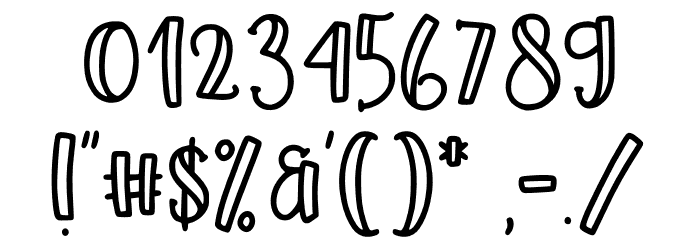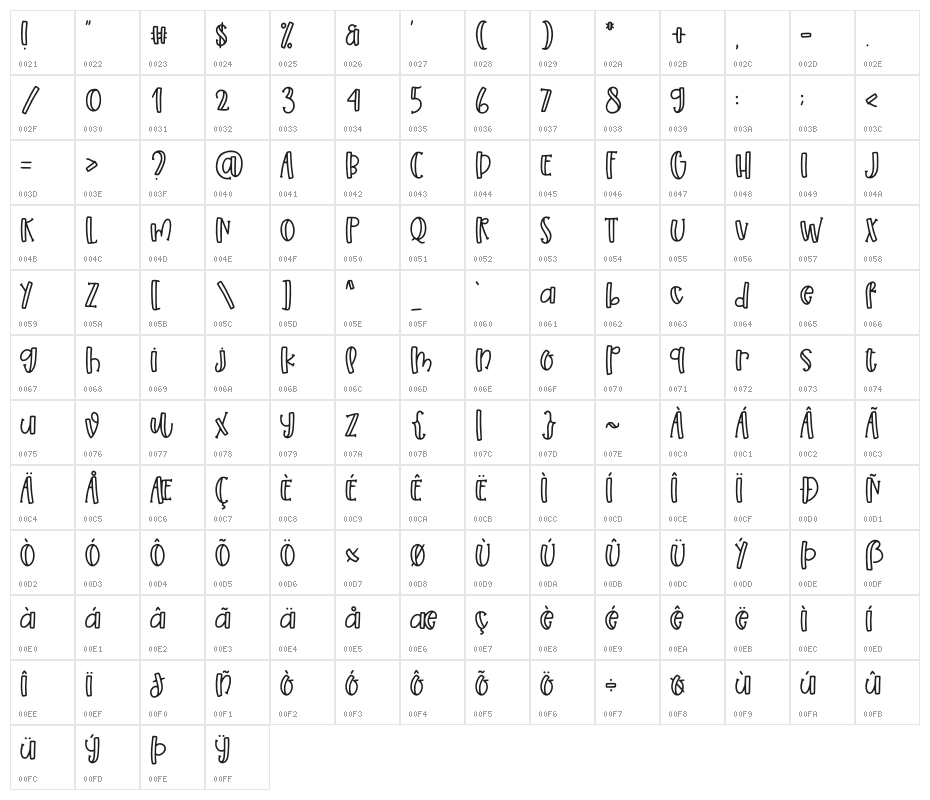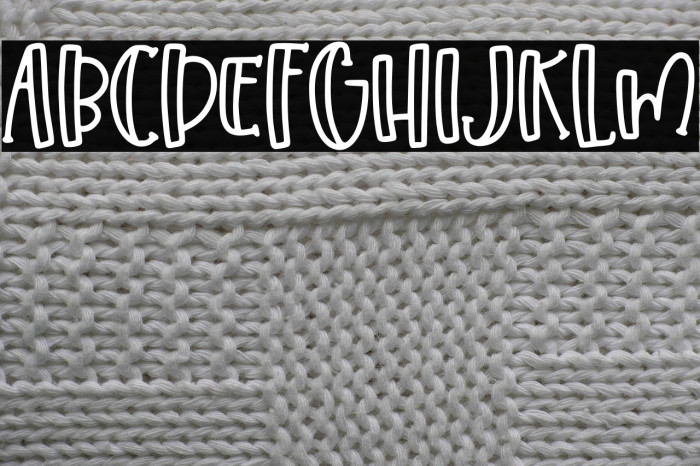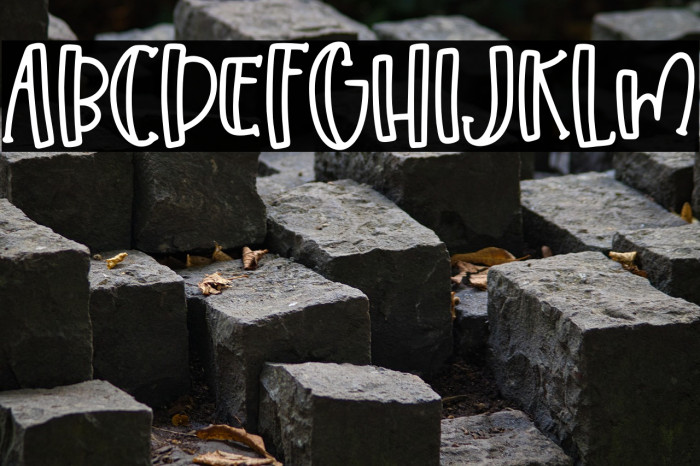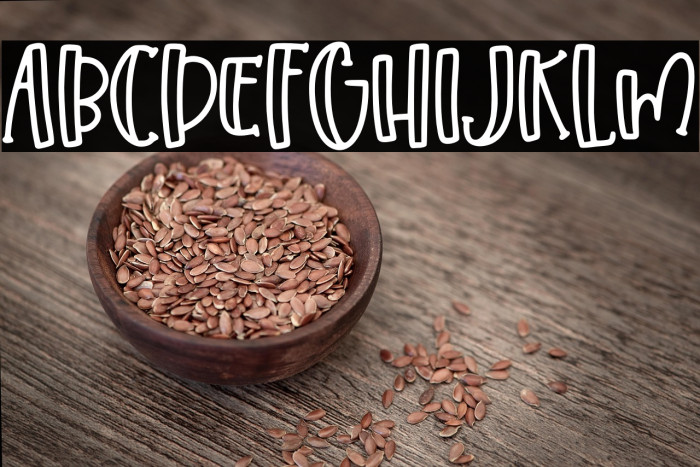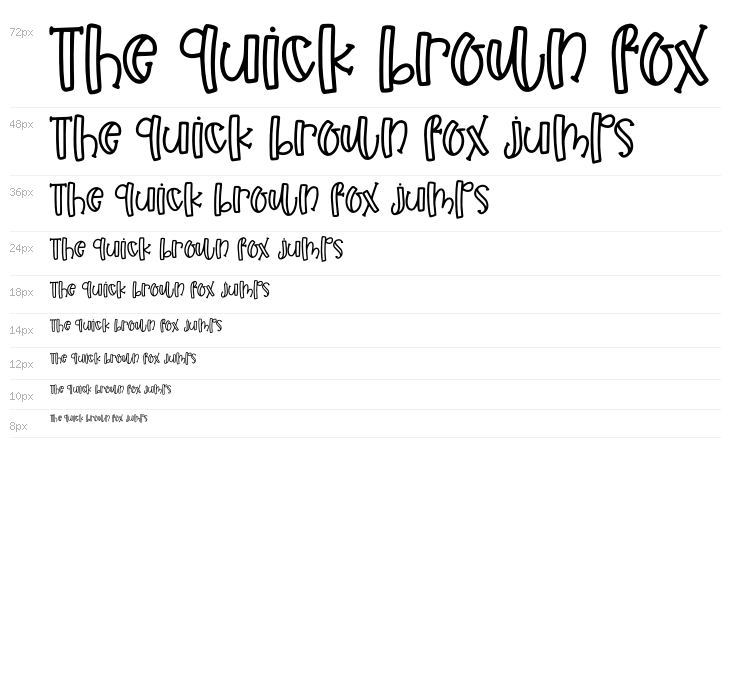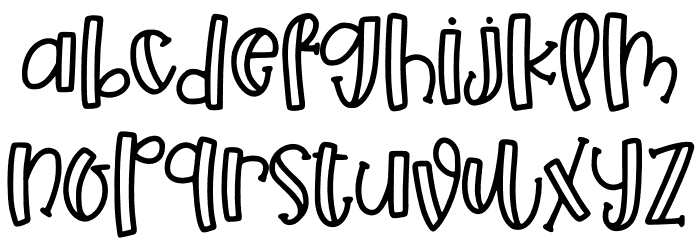
Pumpkin Syrup Line Font
Pumpkin Syrup Line Description
This playful and whimsical font features a hand-drawn style with a casual and friendly appearance. The letters are slightly irregular, adding a touch of charm and personality. The strokes are bold and rounded, giving the font a soft and approachable feel. The uppercase and lowercase letters maintain a consistent style, with a slight slant that adds to the informal look. The numbers and special characters are designed to match the overall aesthetic, making the font versatile for various creative projects. Its unique style makes it perfect for designs that require a fun and lively touch.
| Proposed Projects | Ideal for children's books, greeting cards, playful branding, and DIY crafts. |